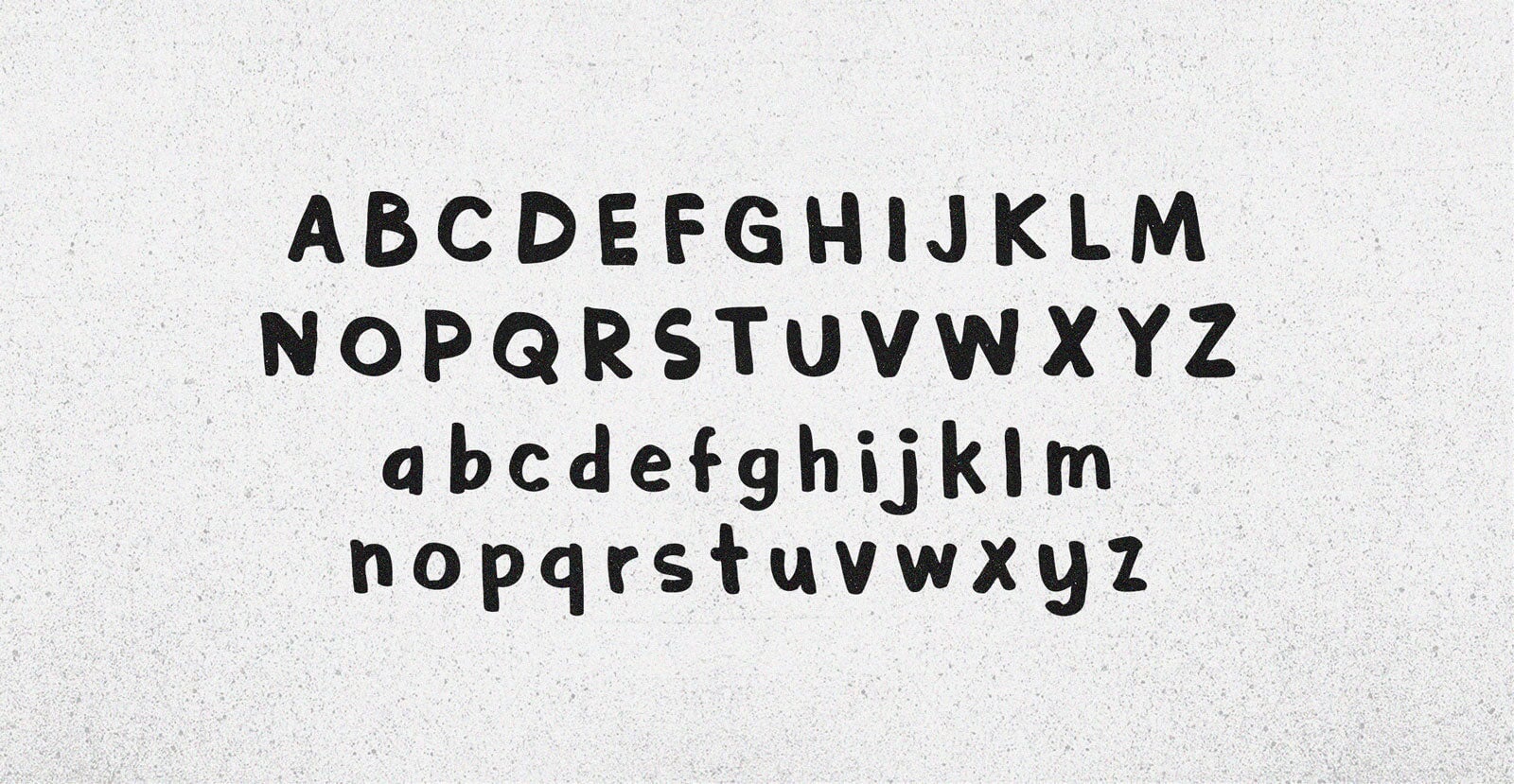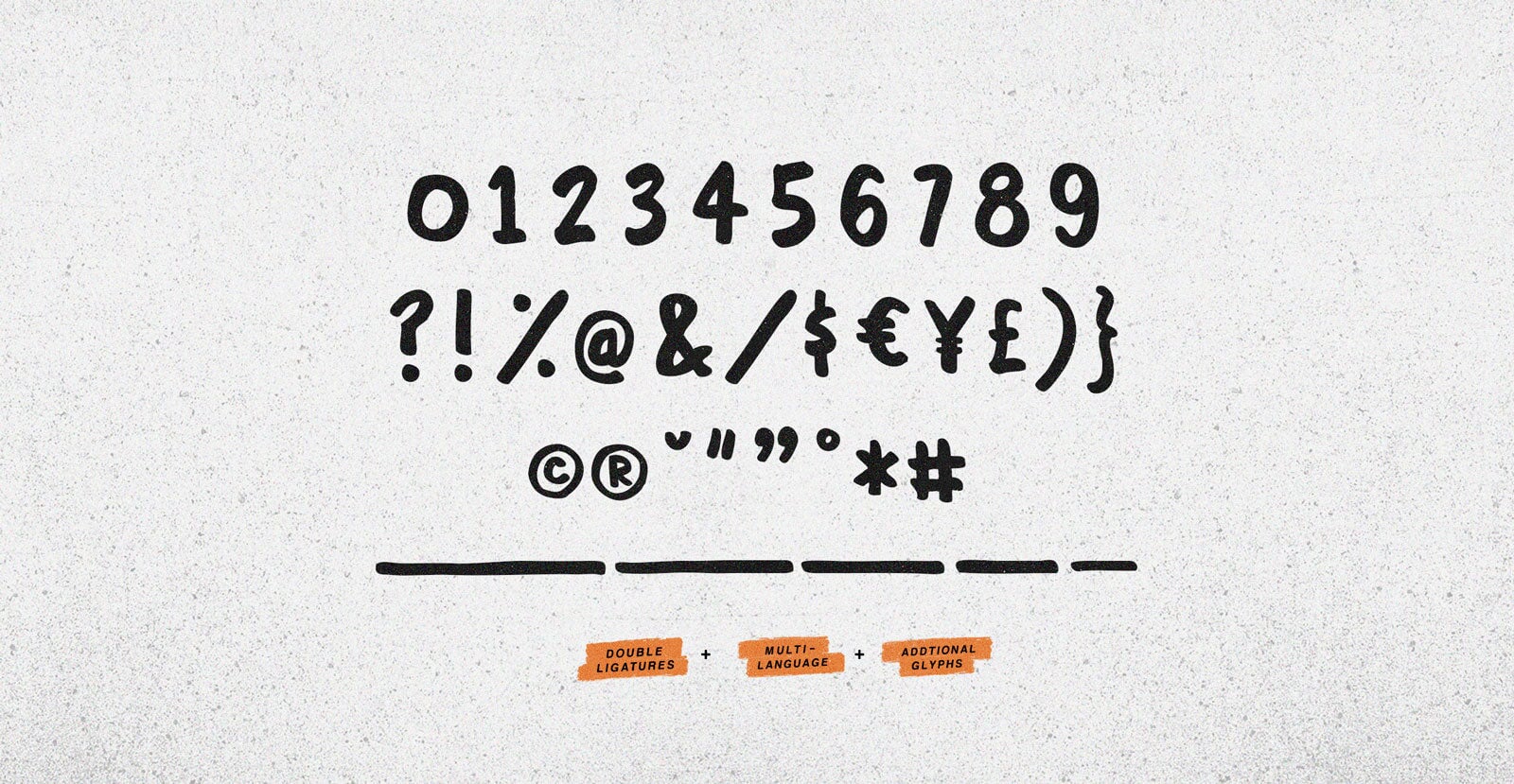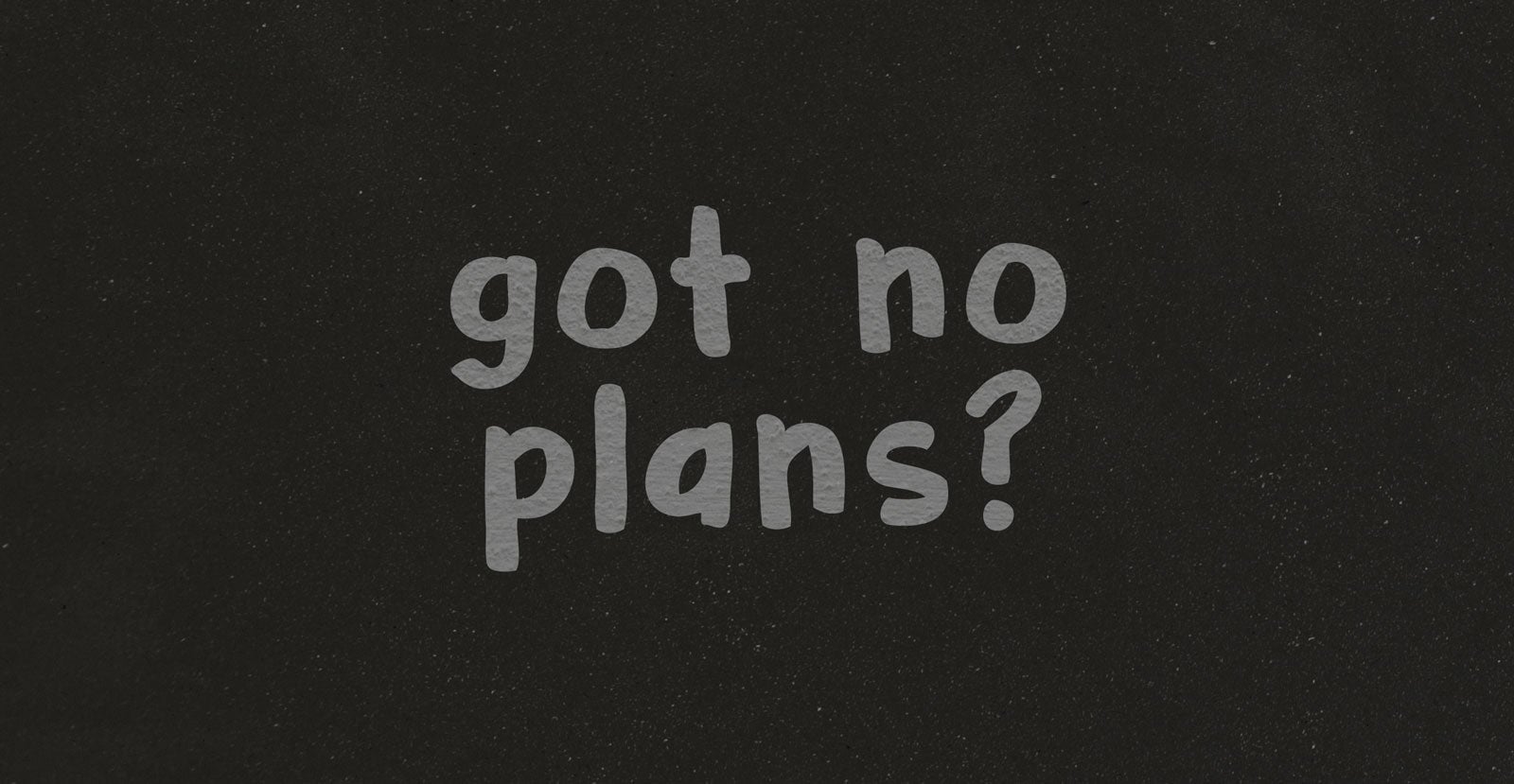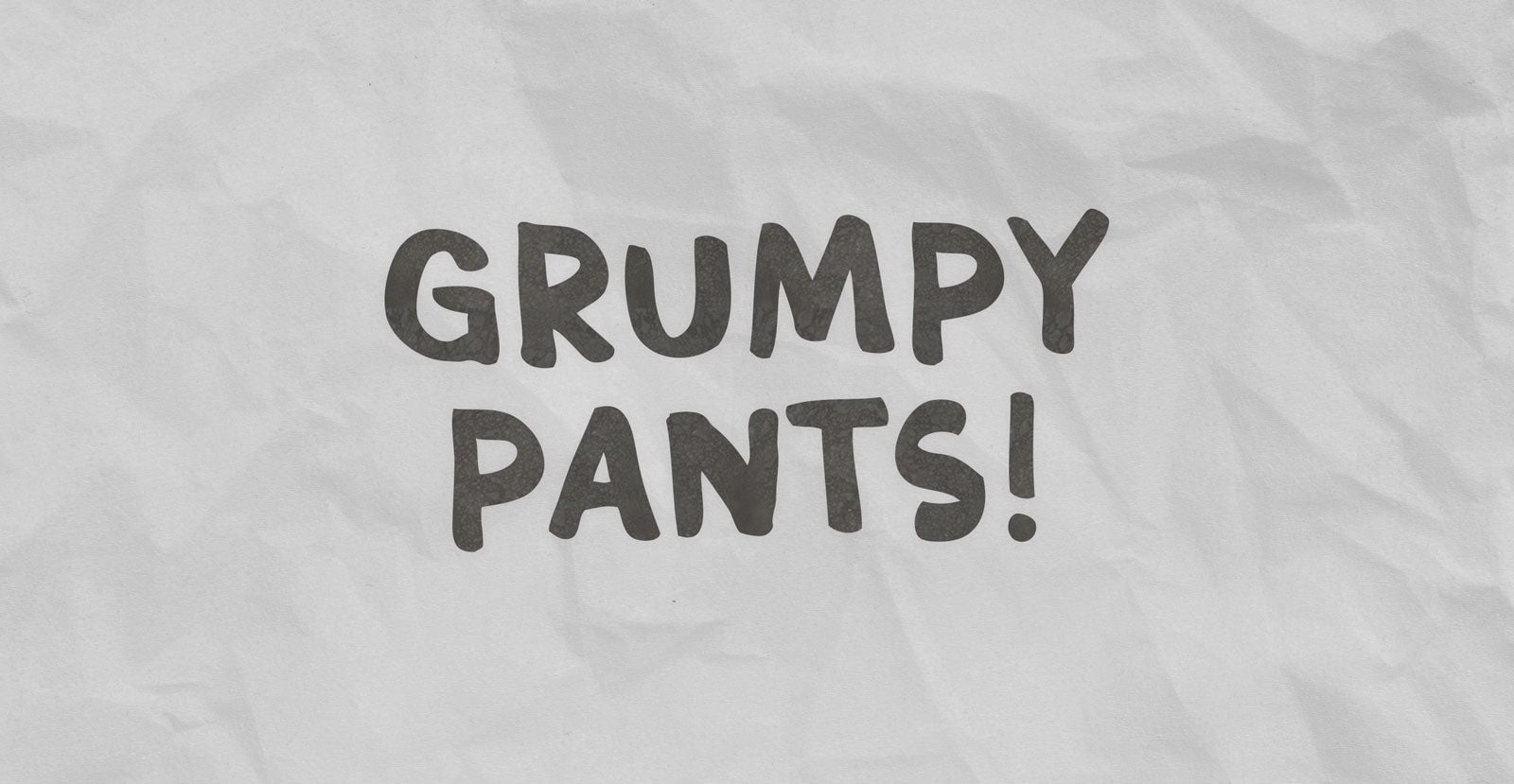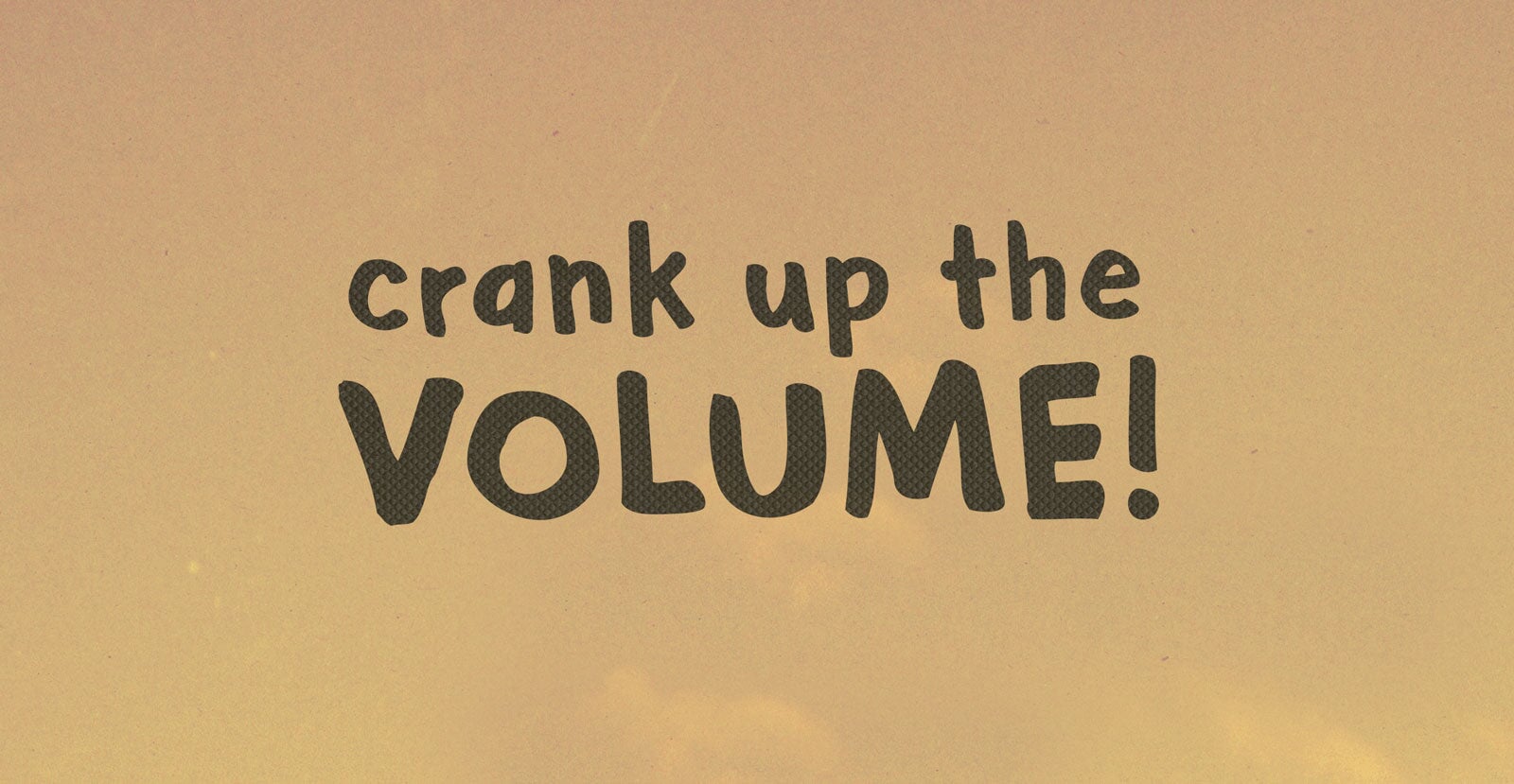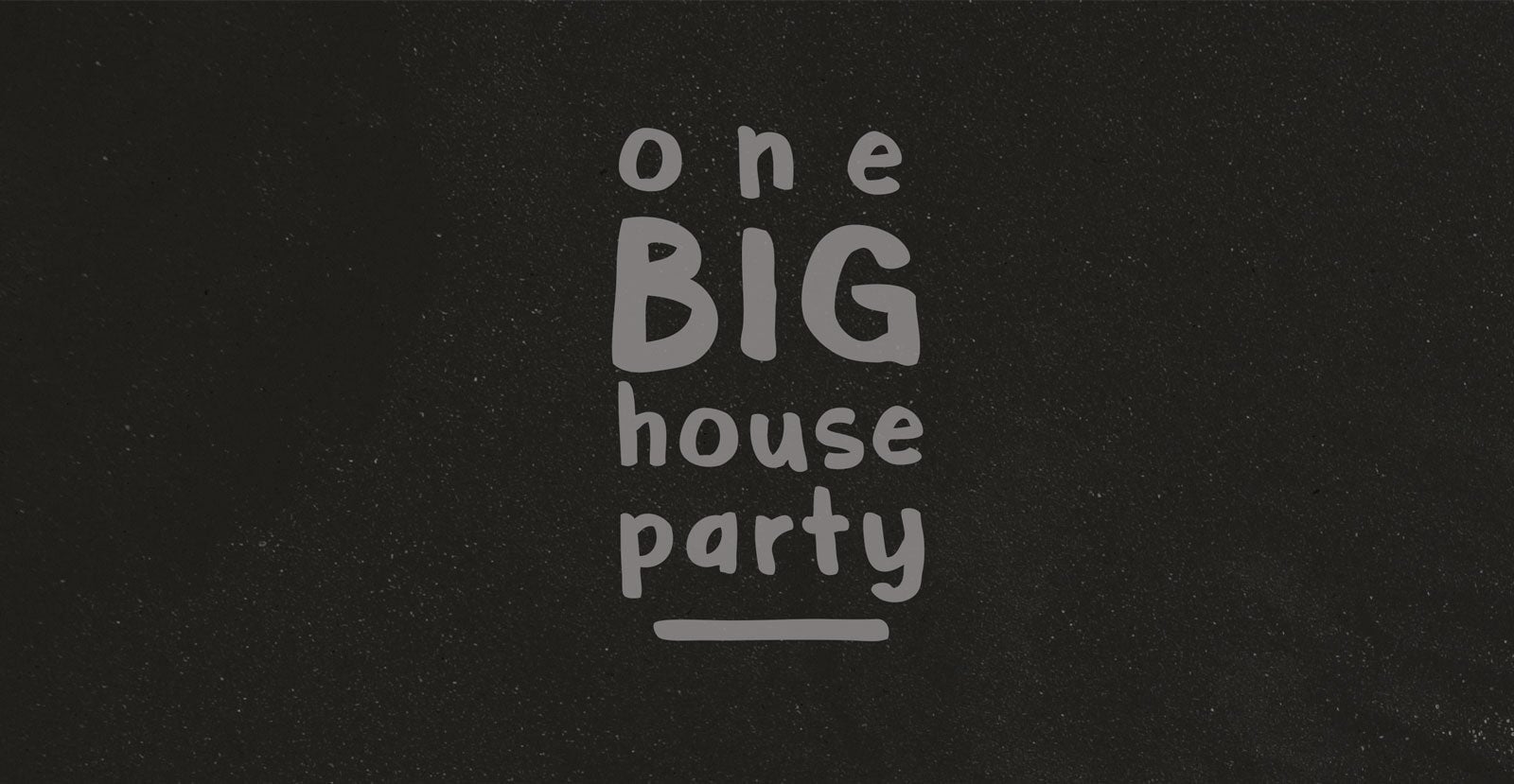
Week Ender
Week Ender moves with unhurried ease. Relaxed, grounded, and just a little undone. It marks the shift from doing to being, a quiet exhale wrapped in sunlight and late starts.